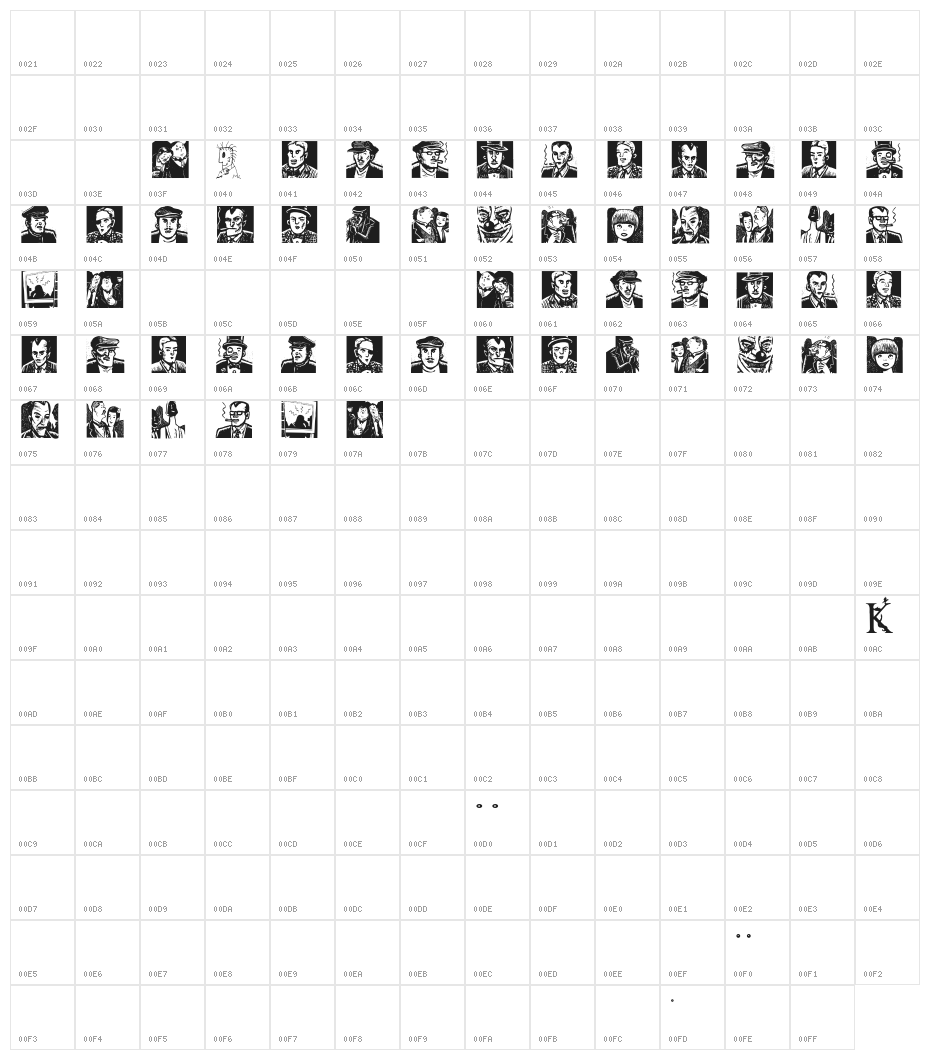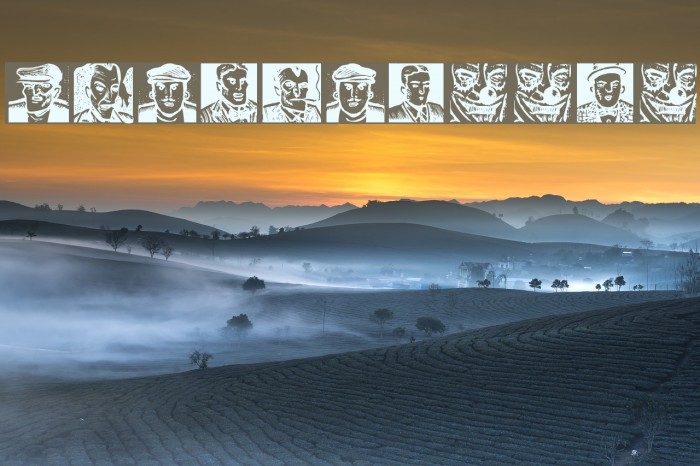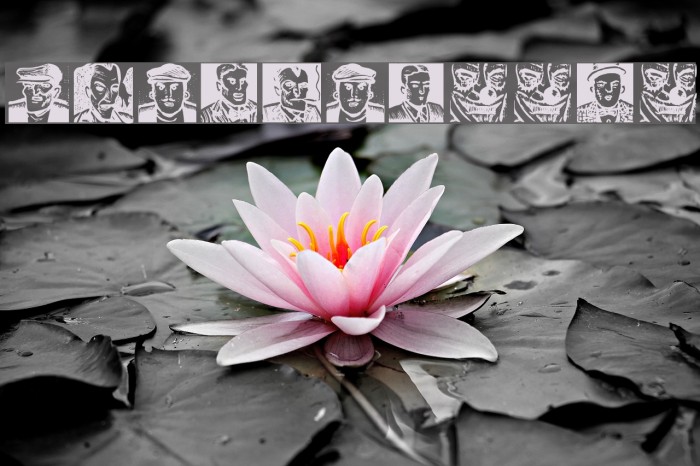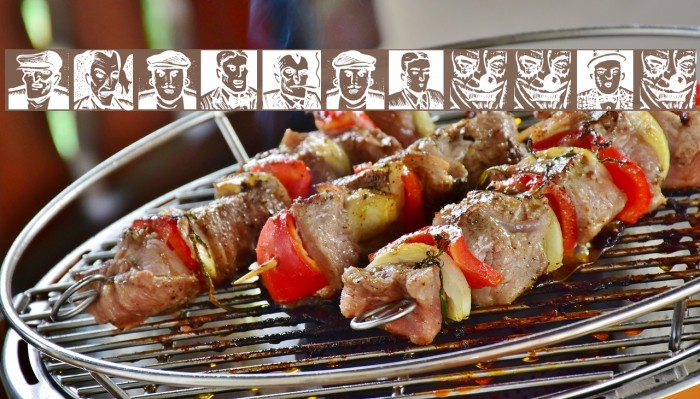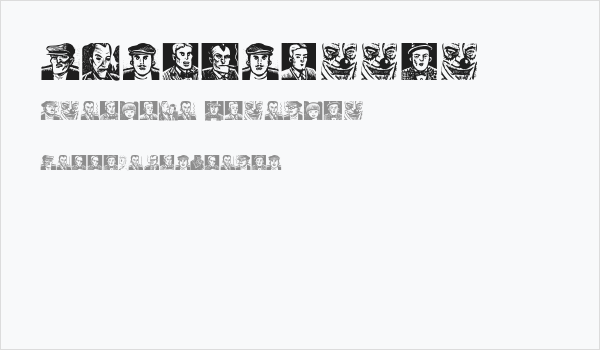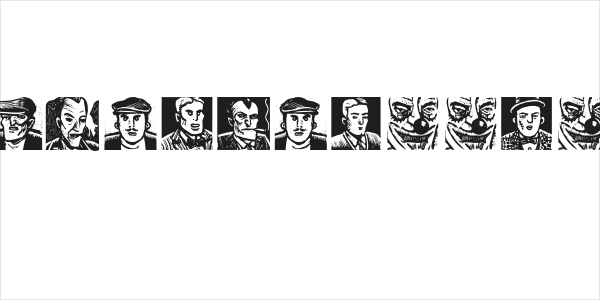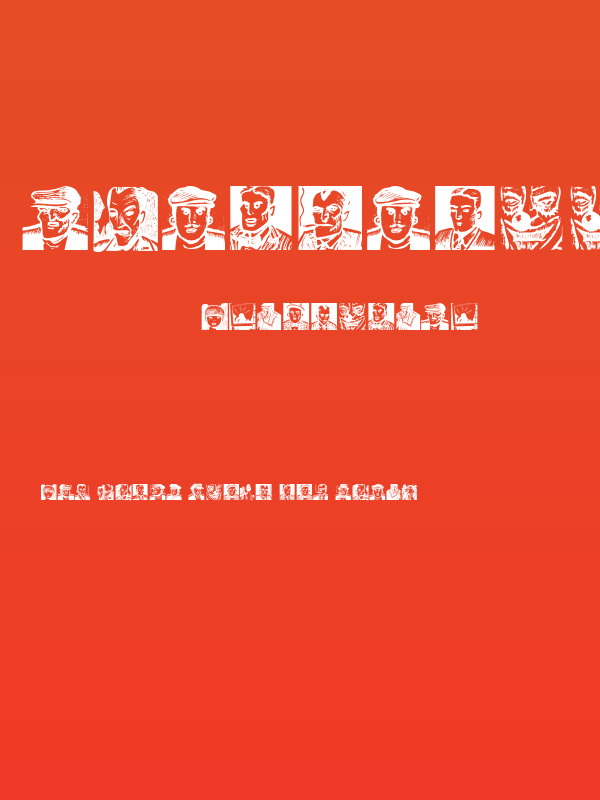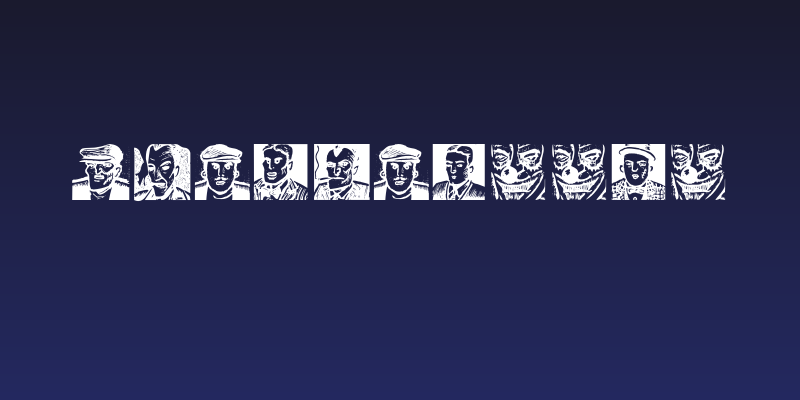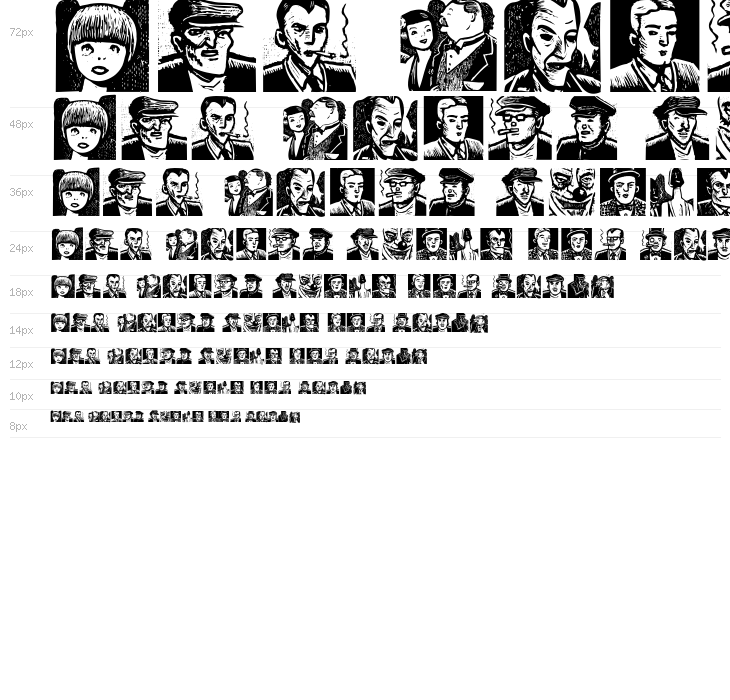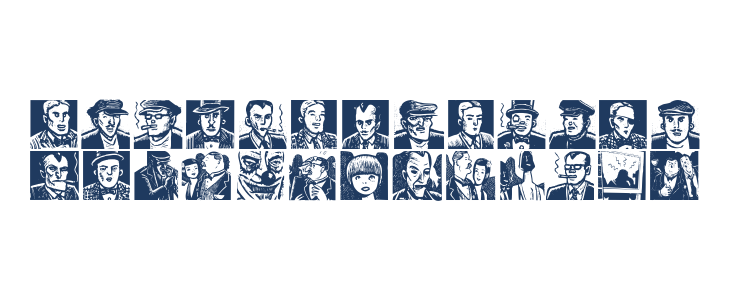
HumanMirror Font
HumanMirror Description
A highly detailed, black-and-white decorative font featuring illustrated portraits of various people in a hand-drawn, comic or graphic novel style. Each character is represented by a unique face or scene, enclosed in a square, with strong contrast and expressive linework.
| Overall Style | Decorative, Comic, Graphic Novel |
| Use Case | Logos, Headlines, Posters, Artistic projects |
| Proposed Projects | Posters, album covers, graphic novels, event flyers, creative branding, editorial illustrations. |